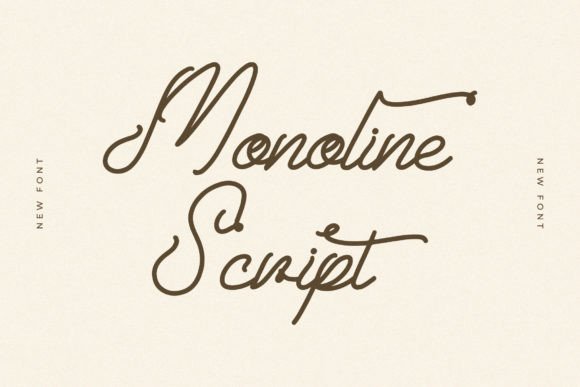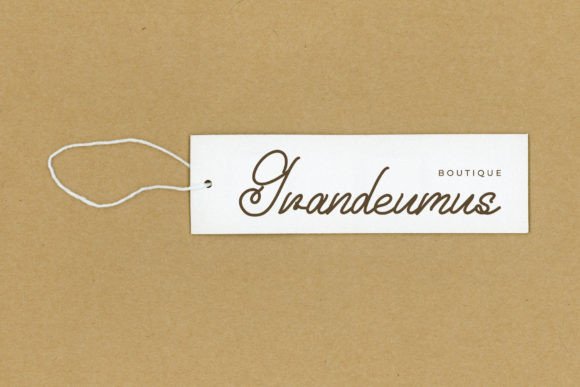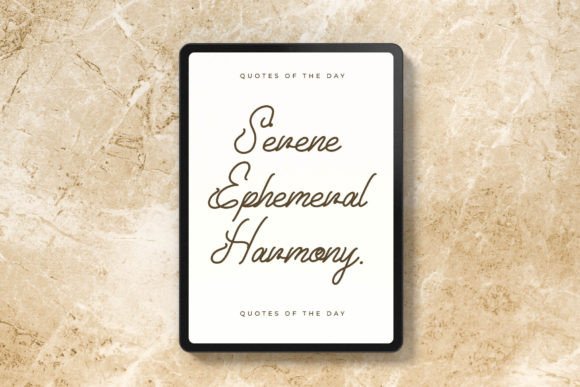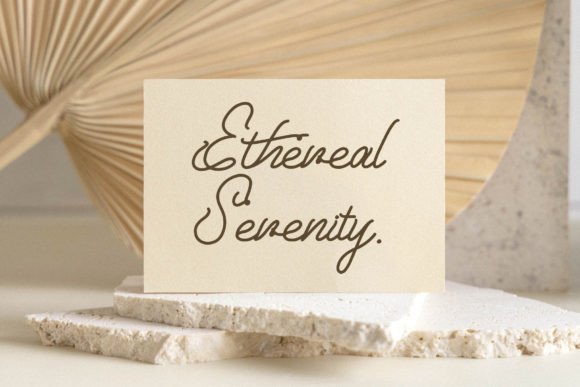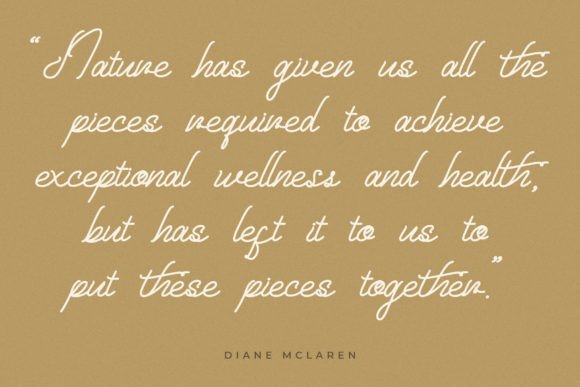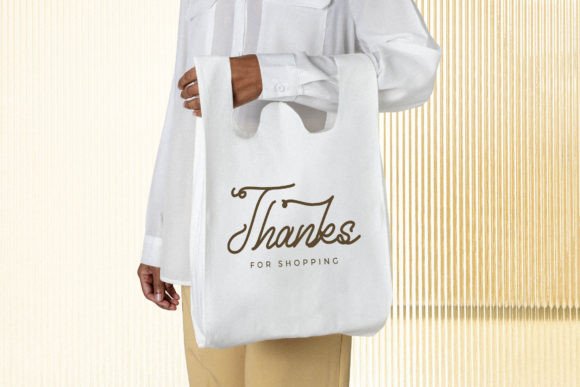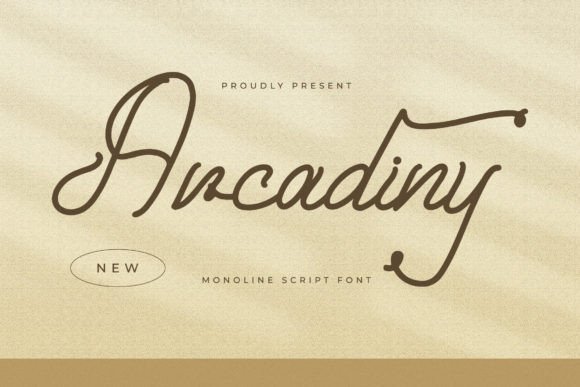
Introducing Arcadiny Font: The Enchanting Handwritten Font for Your Creative Projects
Are you a designer, crafter, or DIY enthusiast looking for a font that can add a touch of romance and whimsy to your next project? Look no further than Arcadiny Font, an enchanting handwritten font that is sure to captivate your audience. With its versatile design and wide range of applications, Arcadiny Font is the perfect choice for anyone looking to add a personal and elegant touch to their work.
The Charm of Arcadiny Font
Arcadiny Font is a beautifully crafted handwritten font that exudes a sense of romance and sophistication. Its elegant and flowing lines are reminiscent of traditional calligraphy, making it perfect for projects that require a touch of classic charm. Whether you’re creating greeting cards, invitations, headlines, or social media graphics, Arcadiny Font is sure to add a level of refinement and whimsy that will set your work apart.
Versatile Applications
One of the best things about Arcadiny Font is its versatility. This font can be used in a wide range of applications, from:
- Greeting cards and invitations: Add a personal touch to your cards and invitations with Arcadiny Font’s elegant and cursive design.
- Headlines and titles: Use Arcadiny Font to create eye-catching headlines and titles that will grab the attention of your audience.
- Social media graphics: Add a touch of whimsy and romance to your social media graphics with Arcadiny Font’s playful and elegant design.
- Branding and packaging: Use Arcadiny Font to create a unique and memorable brand identity that will set your business apart.
- Crafting and DIY projects: Add a personal touch to your crafting and DIY projects, such as scrapbooking, journaling, and paper crafting.
Why Choose Arcadiny Font?
So why choose Arcadiny Font for your next project? Here are just a few reasons:
- Unique and elegant design: Arcadiny Font’s unique and elegant design is sure to add a touch of sophistication and whimsy to your work.
- Versatile applications: Arcadiny Font can be used in a wide range of applications, from greeting cards to headlines and social media graphics.
- Easy to read and use: Arcadiny Font is easy to read and use, making it perfect for designers and crafters of all skill levels.
- High-quality design: Arcadiny Font is a high-quality design that is sure to impress your audience and set your work apart.
Tips for Using Arcadiny Font
Here are a few tips for using Arcadiny Font in your next project:
- Use it sparingly: Use Arcadiny Font sparingly to add a touch of elegance and whimsy to your work.
- Pair it with other fonts: Pair Arcadiny Font with other fonts to create a unique and interesting design.
- Experiment with colors and textures: Experiment with different colors and textures to add depth and interest to your work.
In conclusion, Arcadiny Font is a beautiful and versatile handwritten font that is perfect for designers, crafters, and DIY enthusiasts. With its elegant and whimsical design, Arcadiny Font is sure to add a touch of romance and sophistication to your next project. Whether you’re creating greeting cards, headlines, or social media graphics, Arcadiny Font is the perfect choice for anyone looking to add a personal and elegant touch to their work.